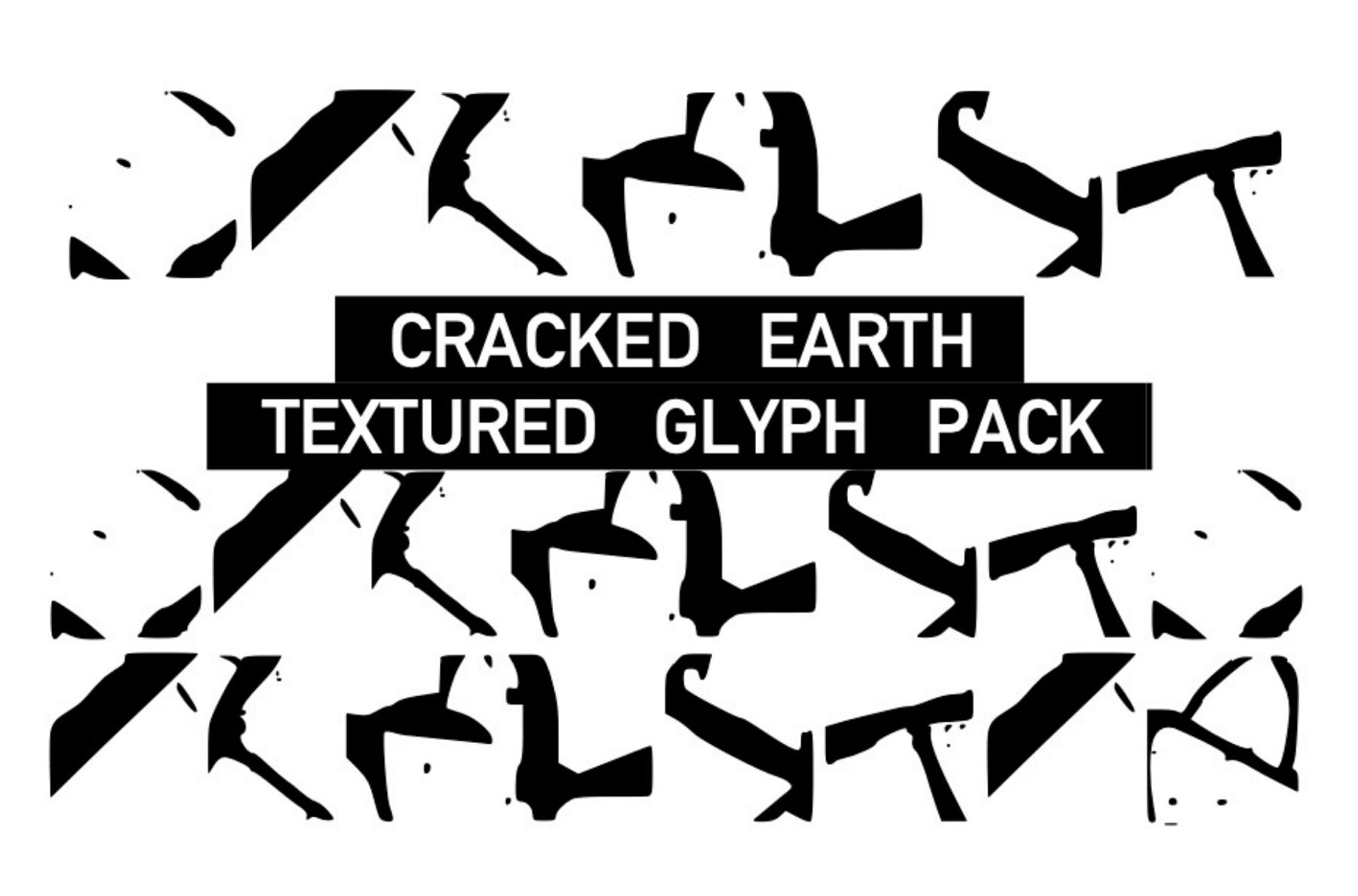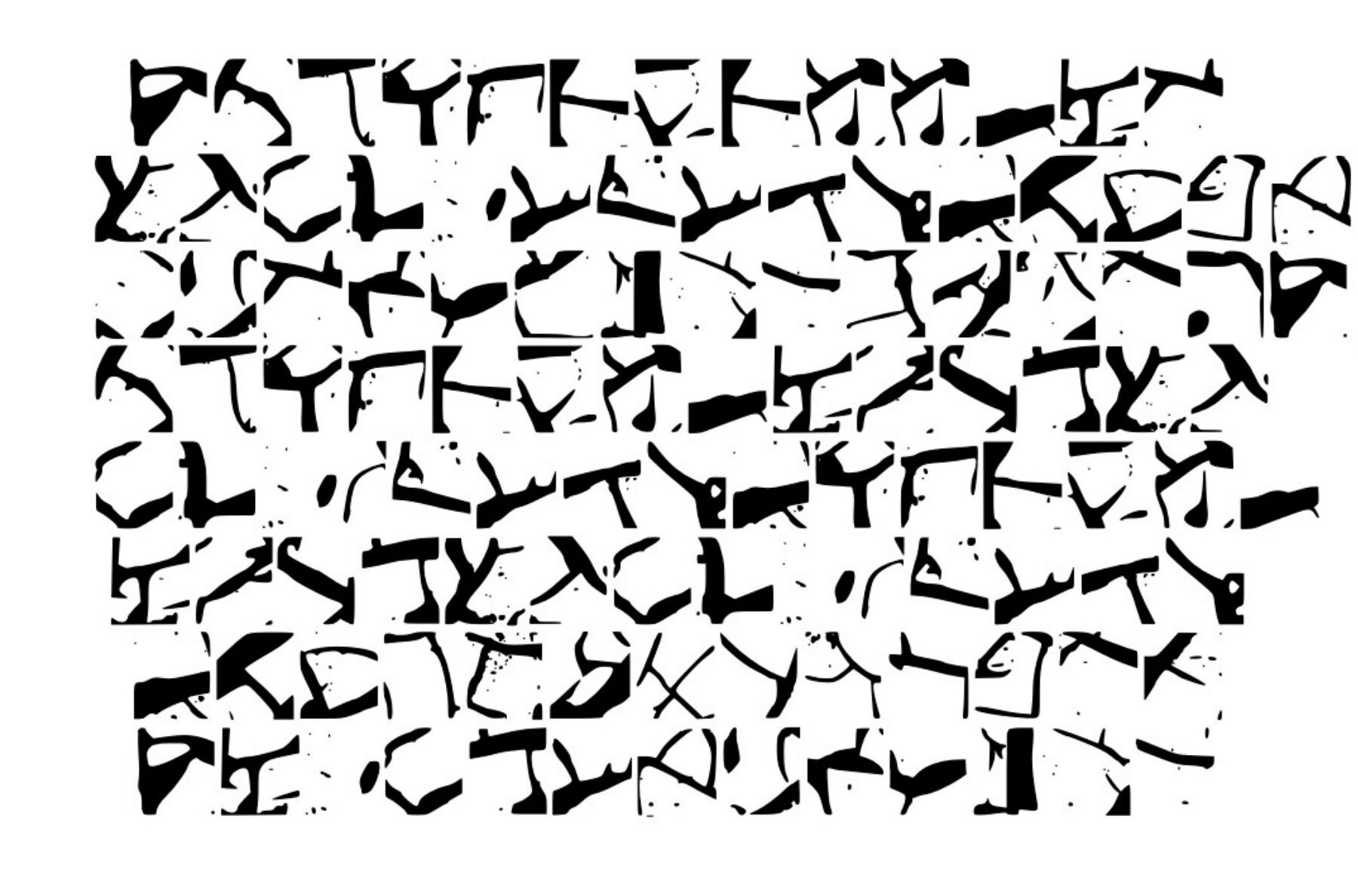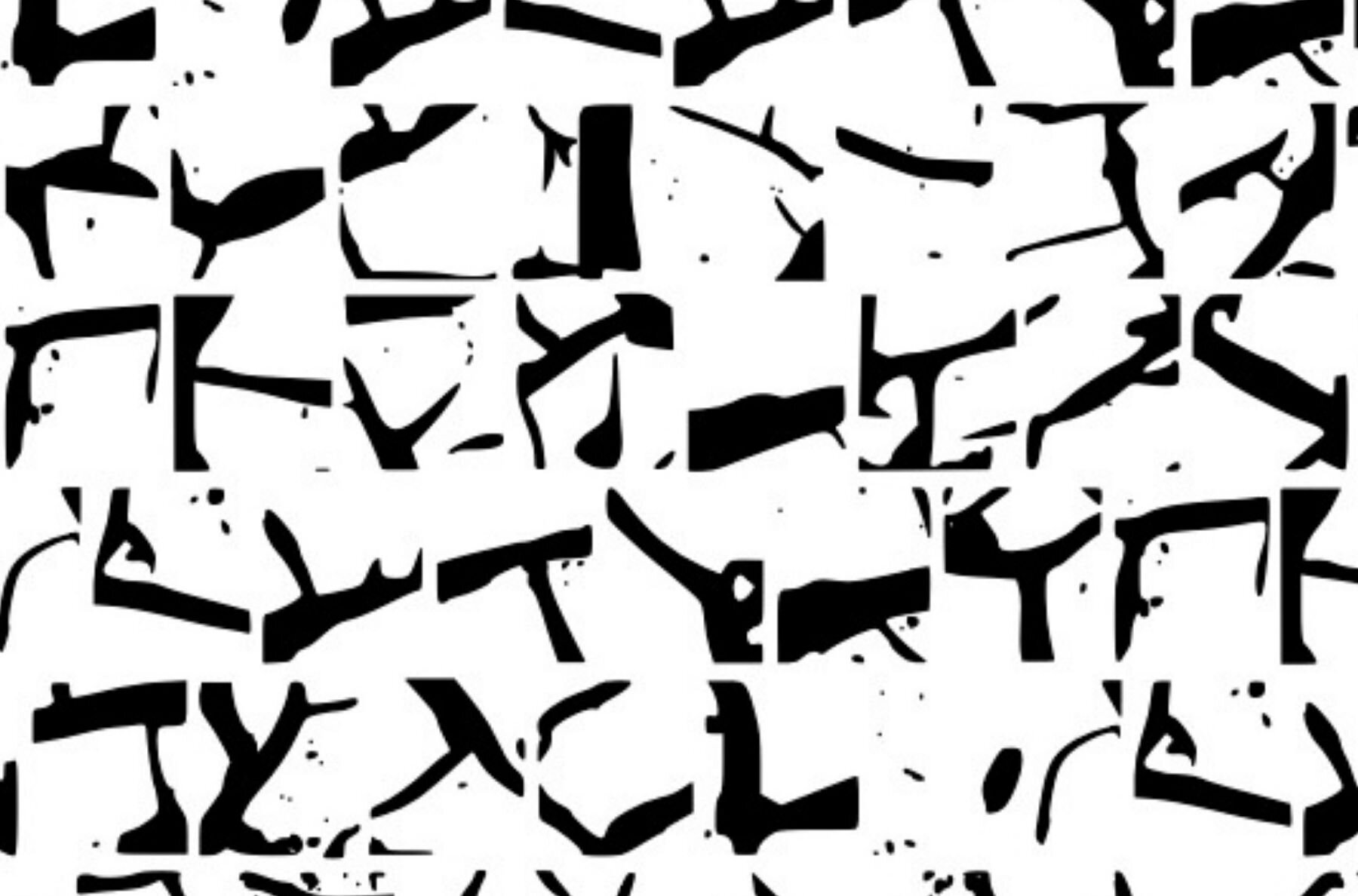
Texture Cracked Earth Font
Texture Cracked Earth
Discover the versatile Texture Cracked Earth collection, featuring deep cracked textures that add depth and character to any project. This massive pack of glyphs provides a captivating array of cracked earth designs, perfect for bringing a unique tactile element to your crafts and digital endeavors. Whether you're working on a design project or creating a piece of art, these glyphs offer a realistic cracked earth appearance that enhances visual appeal. Bring an organic touch to your work with these intricate patterns that mimic nature's own creations.Texture Cracked Earth